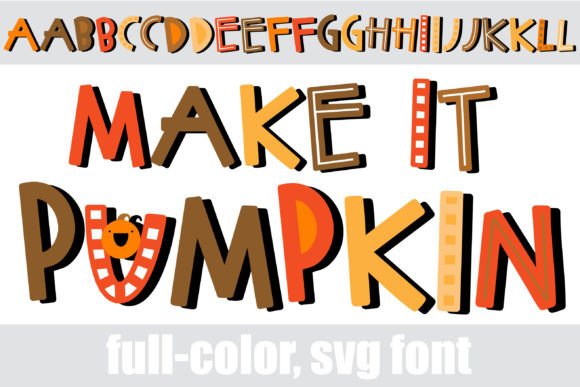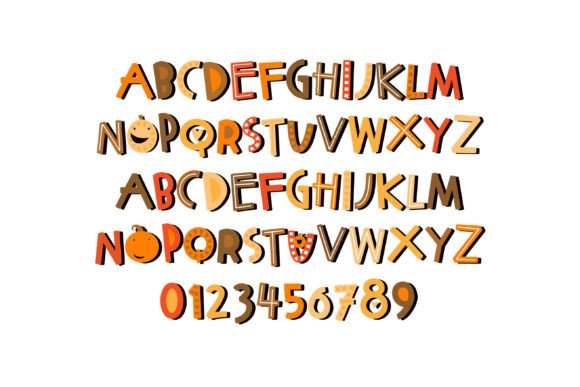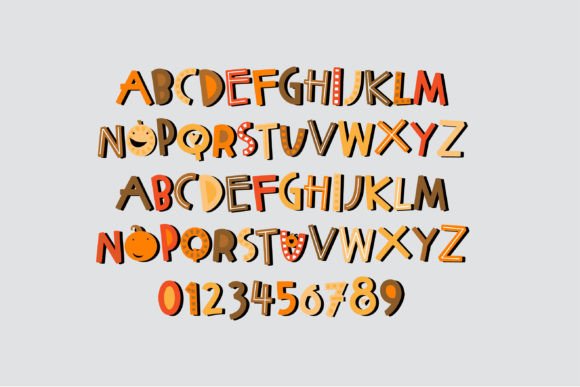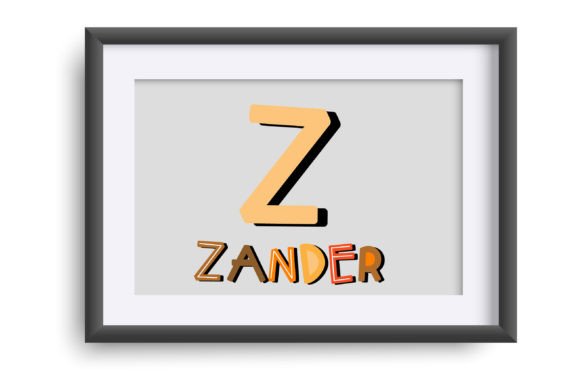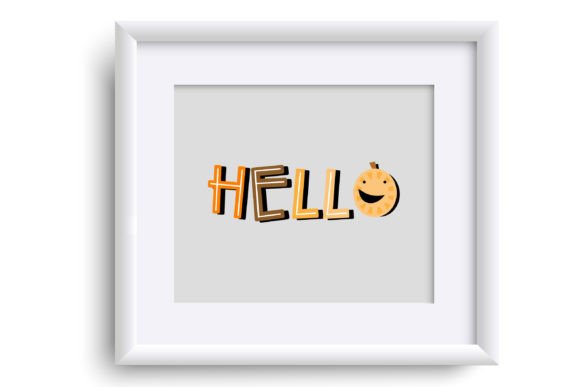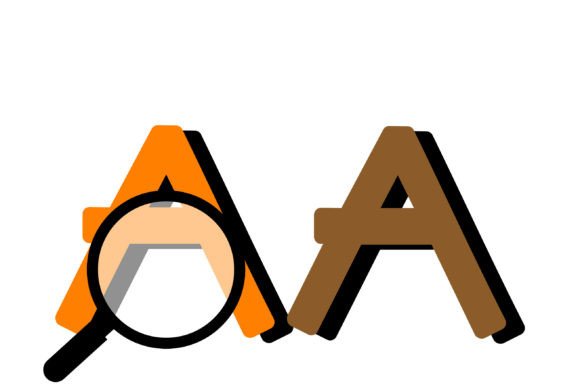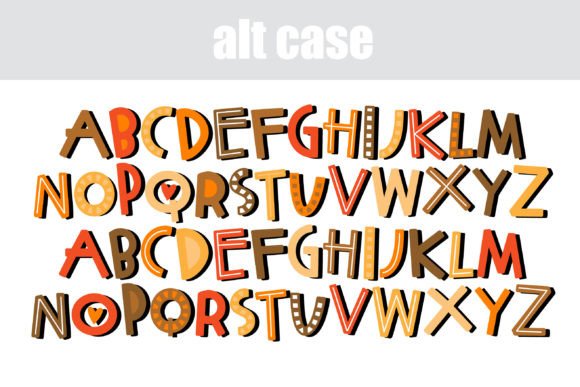
This full-color font features a fun Thanksgiving color palette on whimsical sans serif lettering. There is an alt case w/ additional colors you can access through your system or Silhouette’s glyph map.